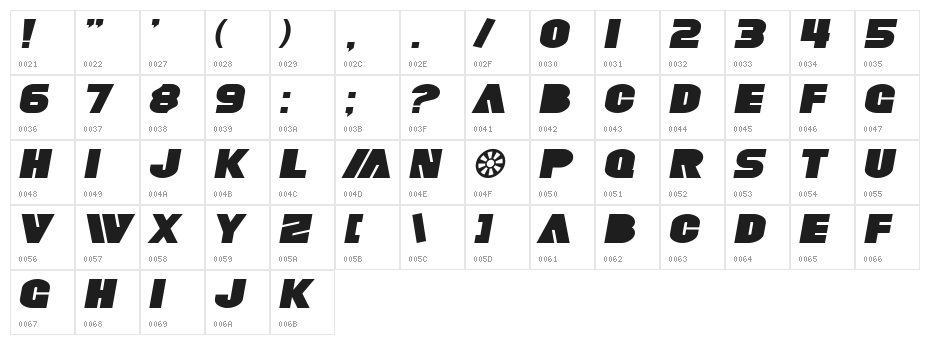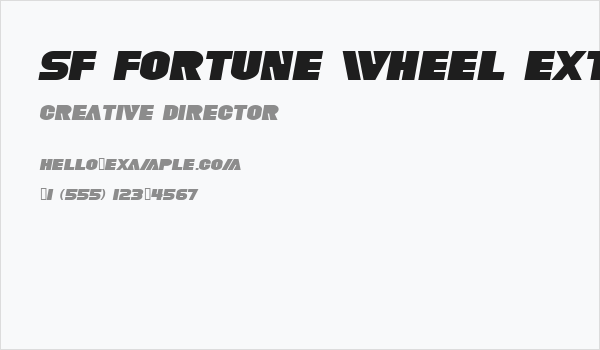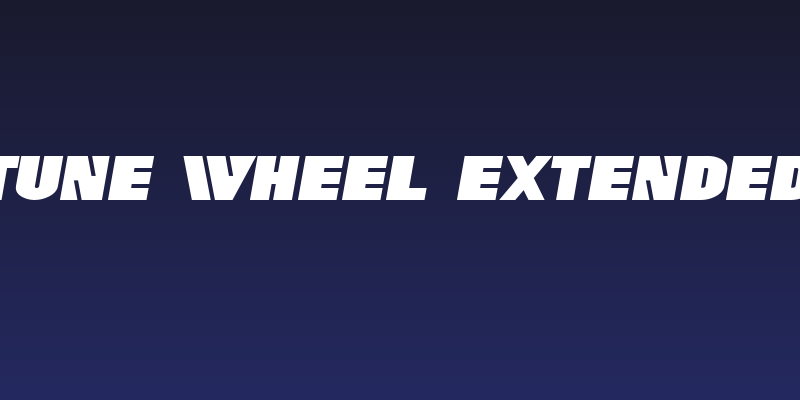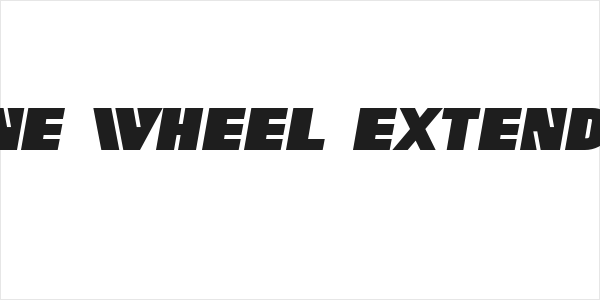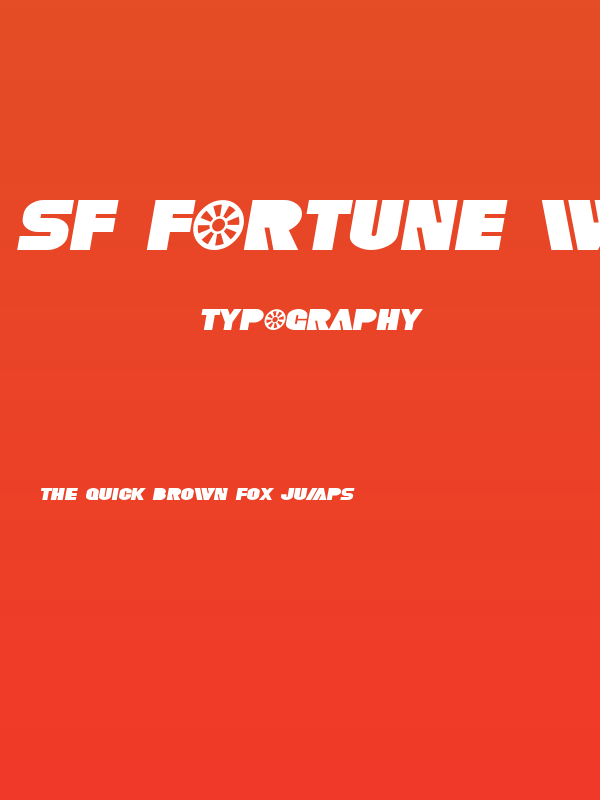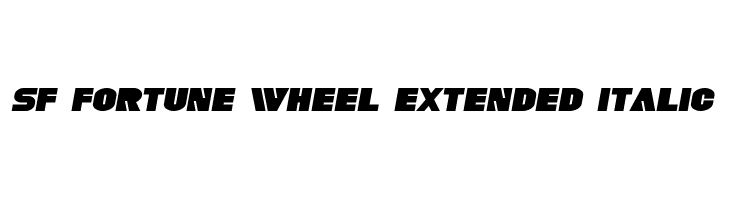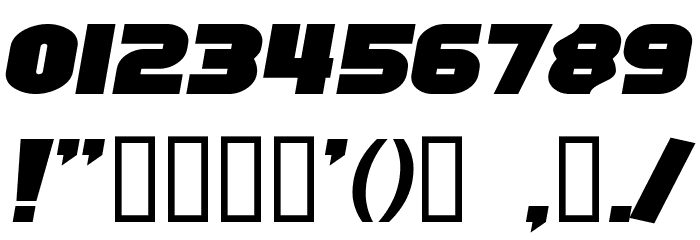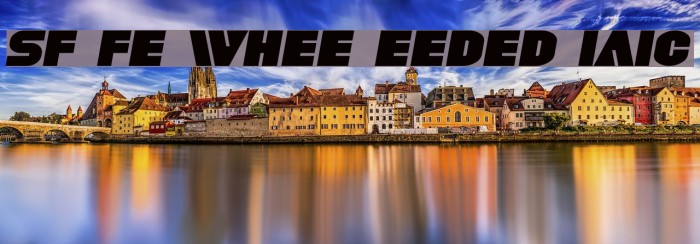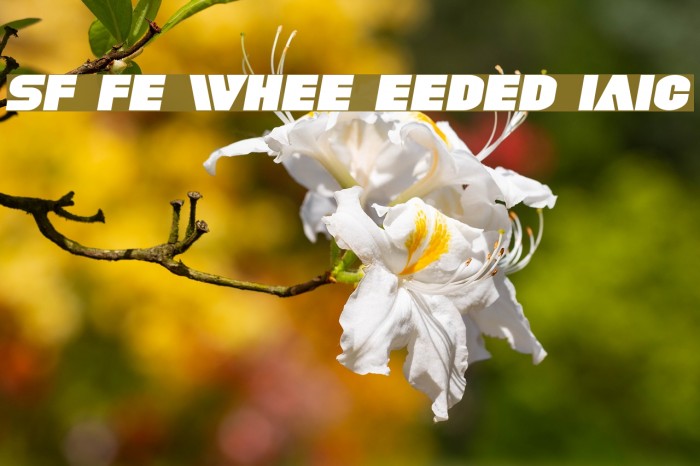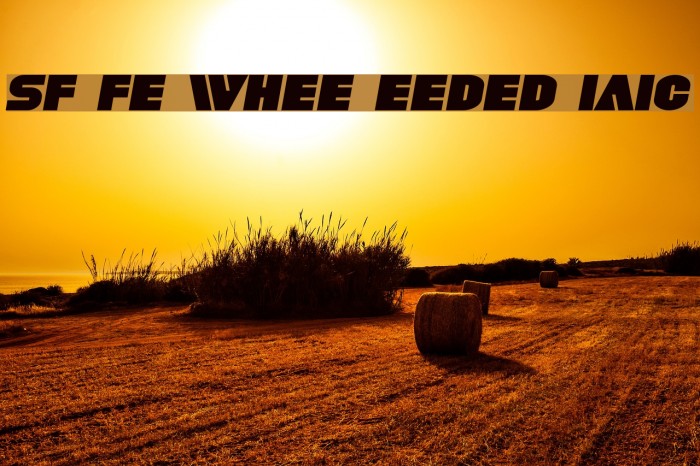
SF Fortune Wheel Extended Italic Font
SF Fortune Wheel Extended Italic Description
This font features a bold and dynamic style with a distinctly modern flair. The characters are designed with a forward-leaning italic slant, giving a sense of motion and energy. The uppercase letters are particularly striking, with geometric shapes and sharp angles that create a sense of strength and assertiveness. The numbers and special characters maintain this bold aesthetic, ensuring consistency across all elements. The font's extended width adds to its commanding presence, making it ideal for attention-grabbing headlines or impactful logos. Its unique design elements, such as the wheel motif in the letter 'O', add a playful and creative touch, enhancing its appeal for innovative projects.
| Proposed Projects | Ideal for branding, advertising, and poster design where a strong visual impact is needed. |